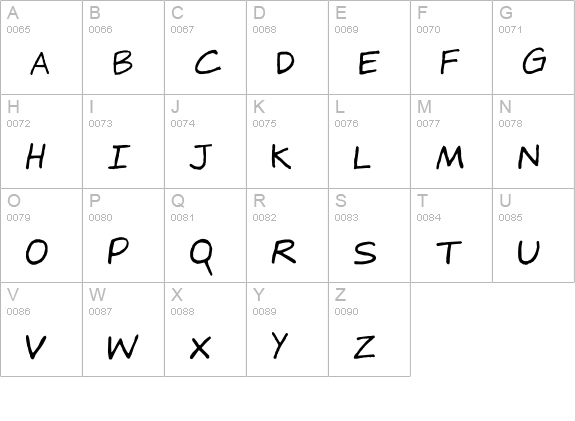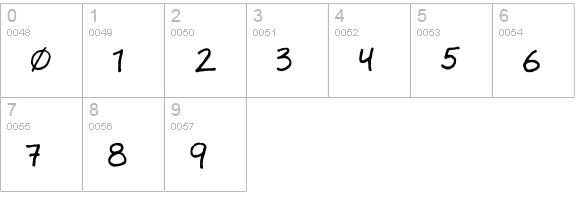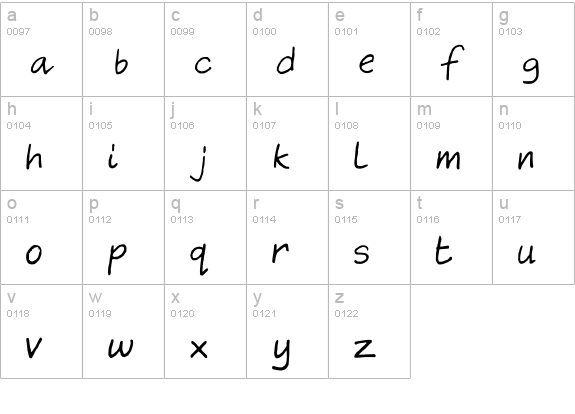
Gragsie Font Details
Introducing Gragsie font, a modern and stylish typeface that exudes sophistication and elegance. With its unique blend of sharp angles and smooth curves, Gragsie font is perfect for a wide range of design projects, from branding to editorial to packaging. What sets Gragsie font apart is not only its striking aesthetic appeal, but also its versatility. This font is incredibly adaptable, able to effortlessly transition from bold headlines to delicate body text with ease. Whether you're looking to make a statement or convey a sense of refined elegance, Gragsie font has you covered. And the best part? Gragsie font is completely free to download at FontsMarket.com. Now you can access this stunning typeface without breaking the bank, making it a must-have addition to your font collection. Don't miss out on the opportunity to elevate your designs with the timeless beauty of Gragsie font.